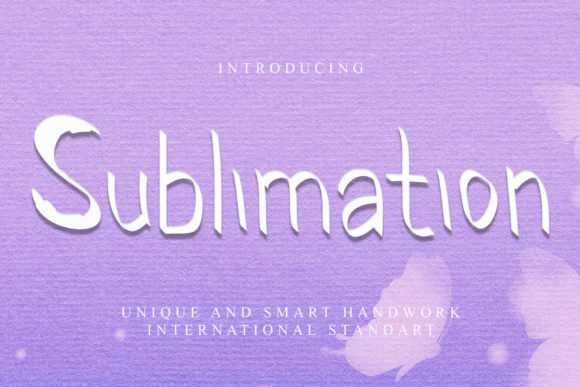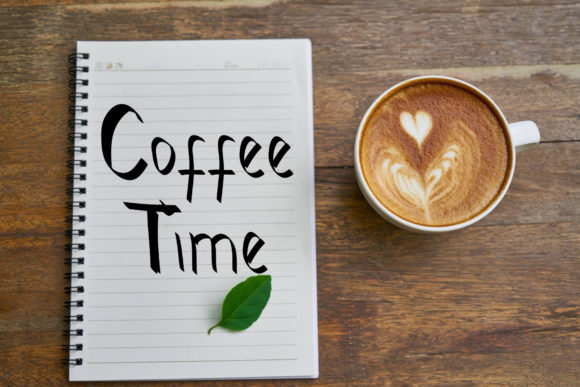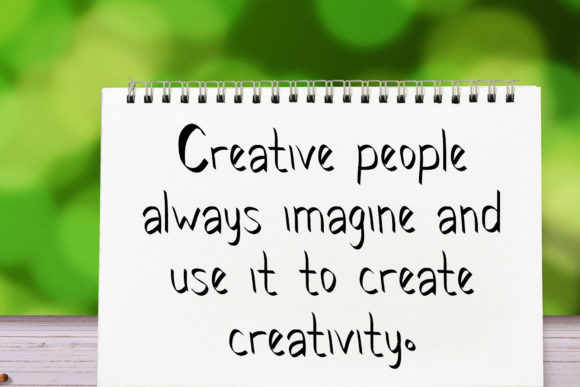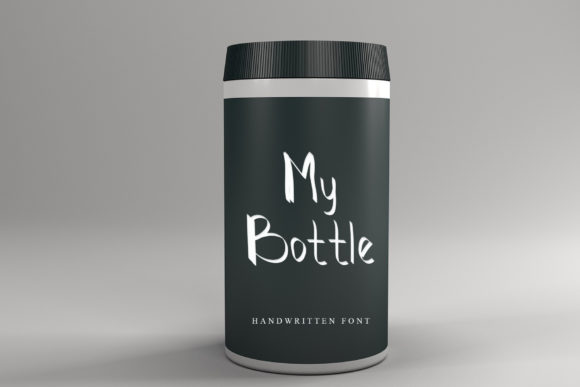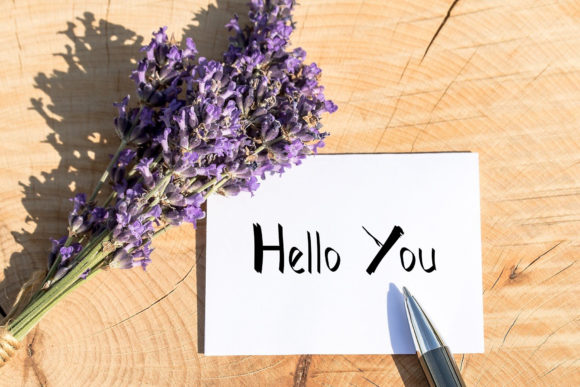
Sublimation Font
About Sublimation Font
Sublimation is a simple and relaxed script font that exudes a lovely style. With its clean and flowing letterforms, this font adds a touch of elegance and charm to any design. Whether you’re working on logos, branding materials, invitations, or social media posts, Sublimation is a versatile asset for your font library.
The font’s simplicity and readability make it suitable for a wide range of topics and design projects. Its relaxed and casual theme creates a friendly and approachable vibe, perfect for conveying a laid-back and inviting message. The clean lines and balanced proportions of each character ensure legibility and clarity, even in smaller sizes.
Sublimation’s simplicity also allows it to adapt seamlessly to various design contexts. It can be used as a standalone headline or integrated with other fonts to create a harmonious typographic composition. The font’s versatility makes it ideal for both print and digital designs, ensuring a consistent and professional look across different mediums.
While Sublimation is simple, it still retains a touch of elegance and style. The letterforms have subtle curves and soft edges, giving them a graceful and pleasing appearance. This delicate balance between simplicity and sophistication makes Sublimation an excellent choice for projects that require a refined yet approachable aesthetic.
Additionally, Sublimation’s versatility extends to its potential applications. The font can be used for a variety of design purposes, including logos, branding materials, invitations, stationery, social media posts, and more. Its adaptability allows it to enhance any creation and elevate the overall visual impact.
In conclusion, Sublimation is a simple and relaxed script font that adds a lovely touch to any design. Its versatility, readability, and charming style make it a valuable asset in your font library. Whether you’re working on professional or personal projects, Sublimation has the potential to elevate your designs and create a visually appealing result.